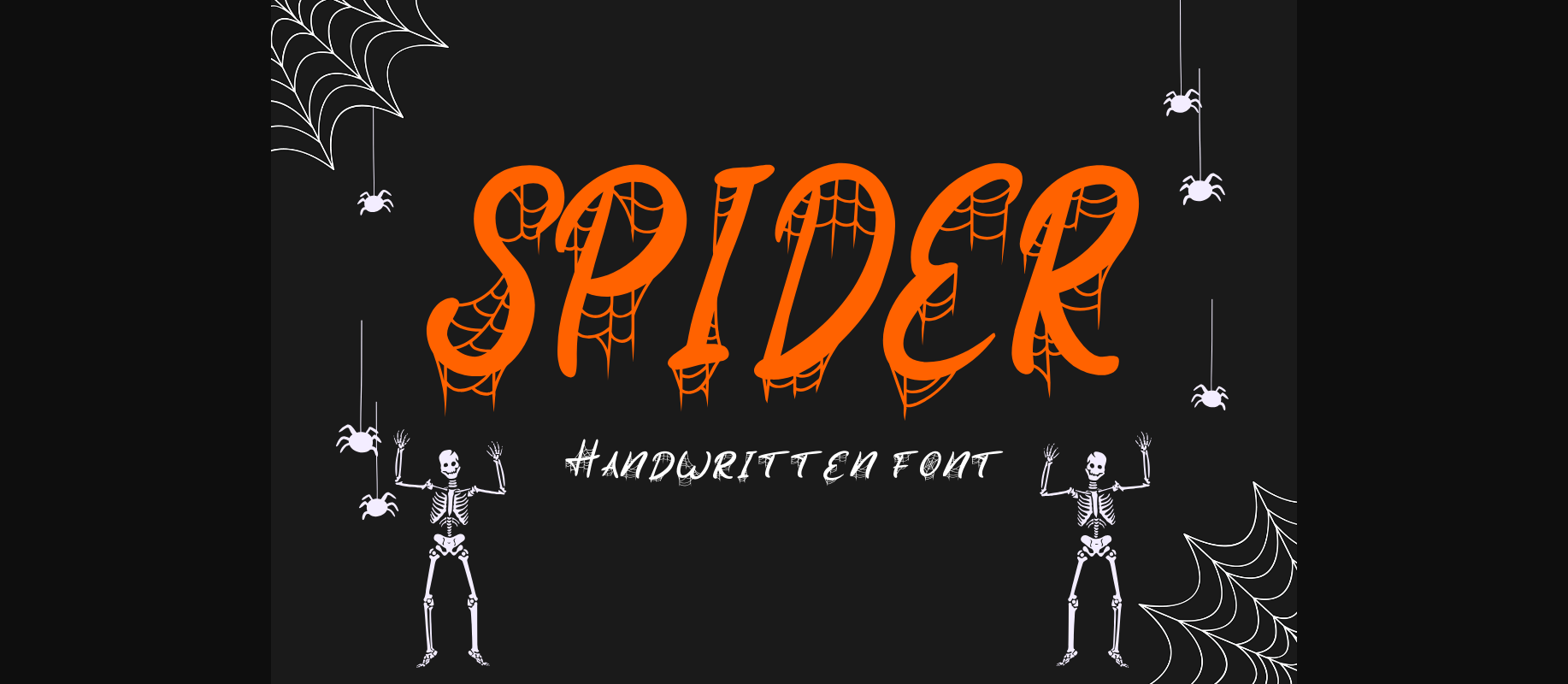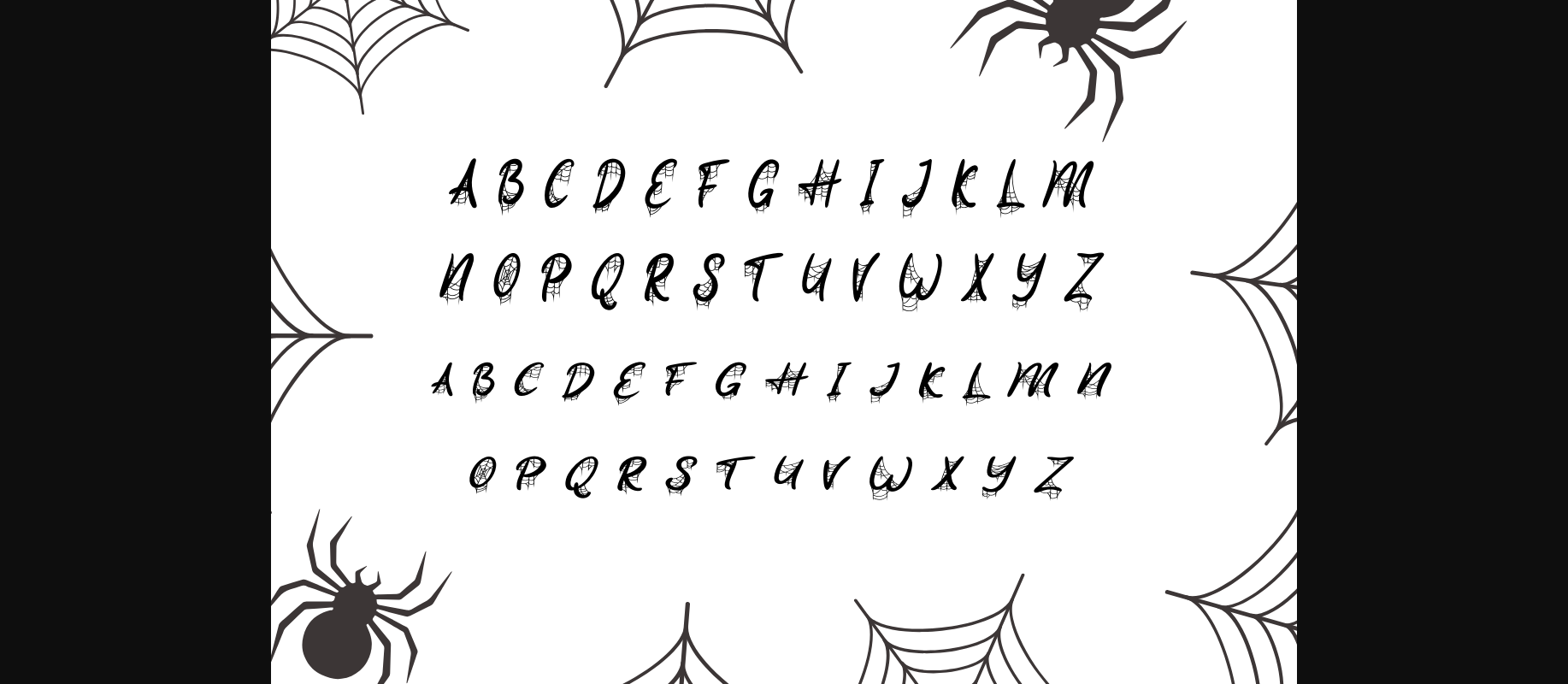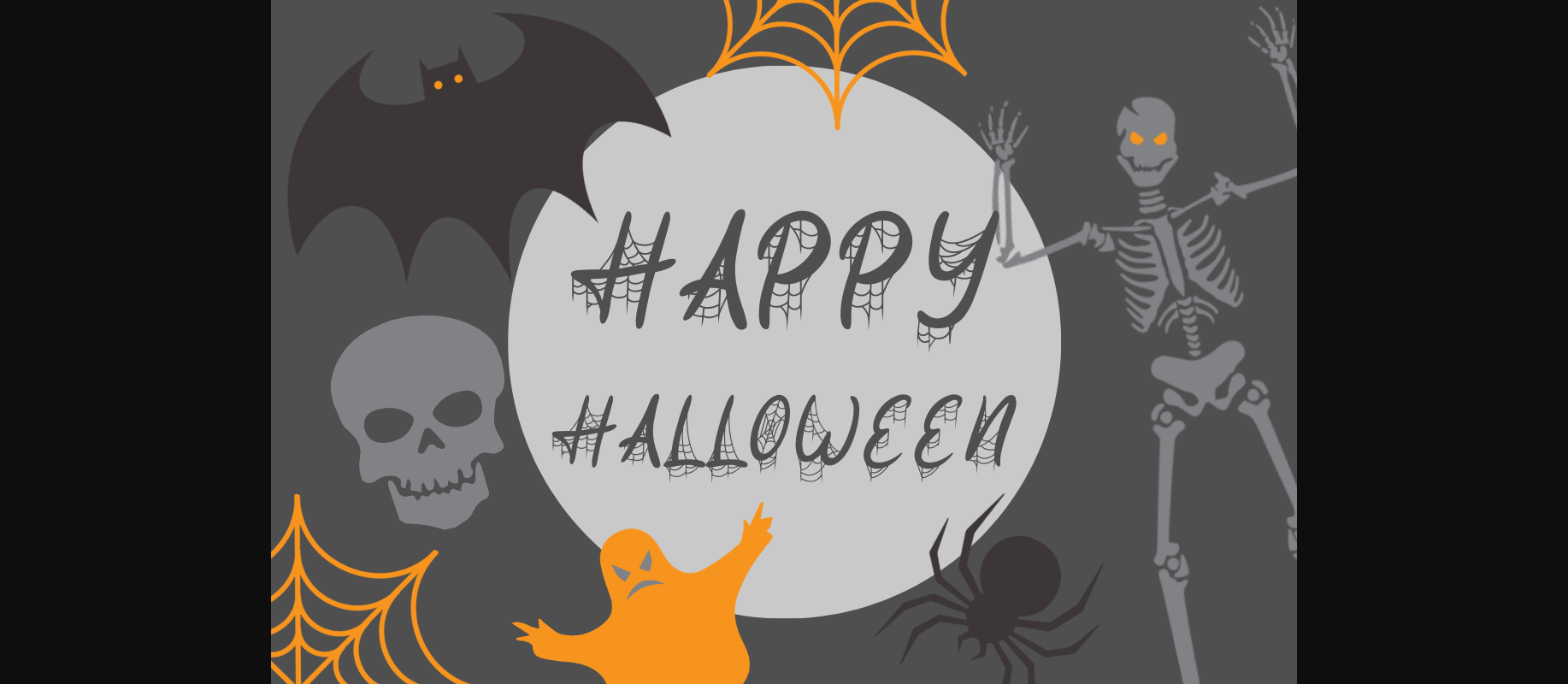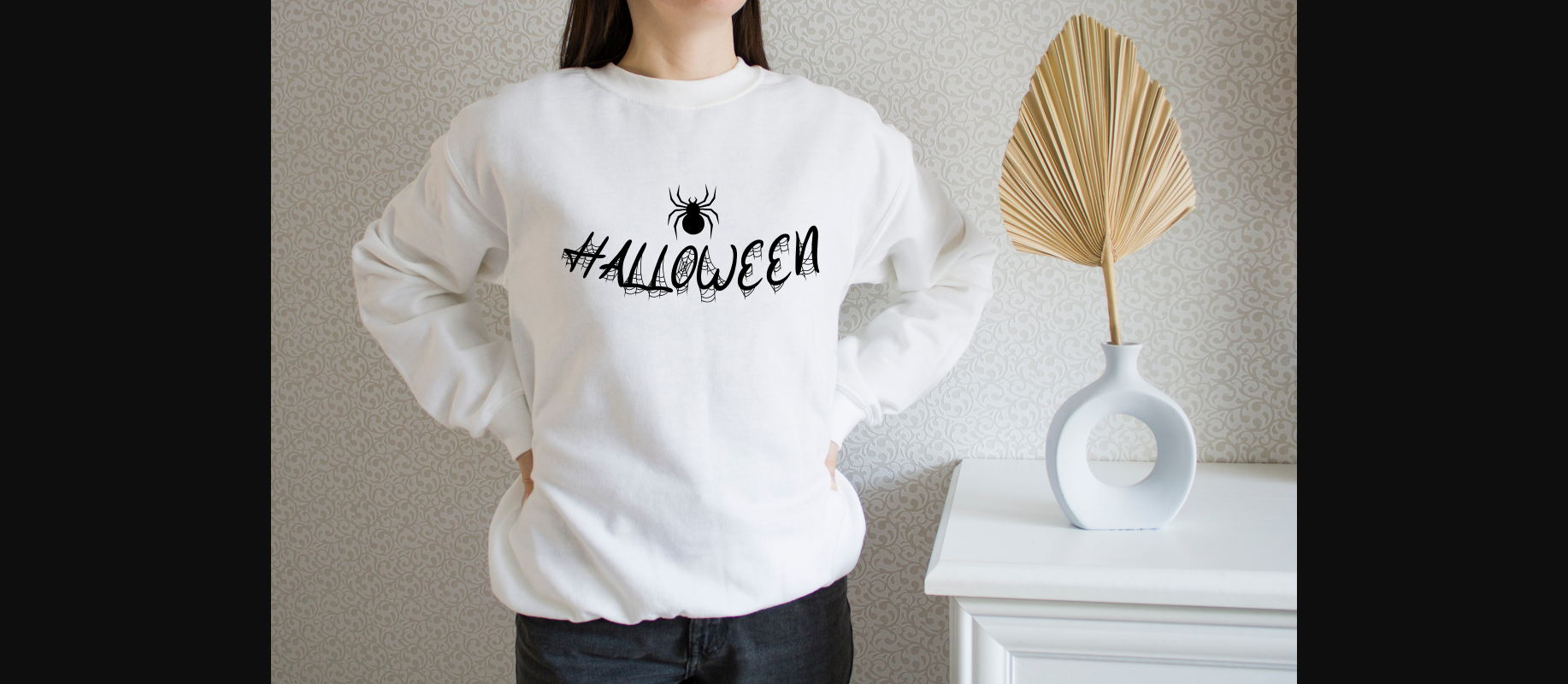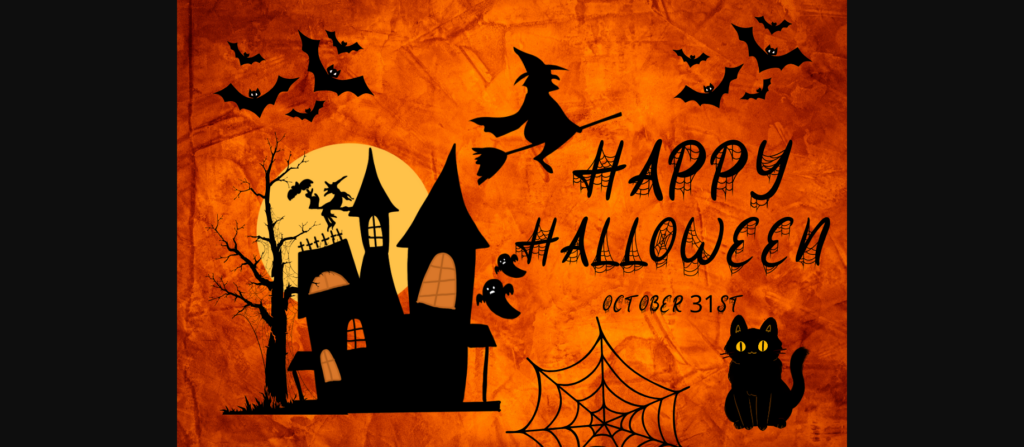
Spider Font
About Spider Font
Spider is a captivating handwritten decorative font that spins a web of creativity. Its unique charm lies in the delicate spider webs intricately woven around the letters, adding a touch of intrigue to your text. Perfect for projects that need a hint of mystique and artistic flair, Spider brings a handmade touch with a spooky twist. Whether you’re working on Halloween invitations, themed decorations, or anything that demands a bit of the extraordinary, Spider is the ideal choice for a font that weaves a spell of creativity.